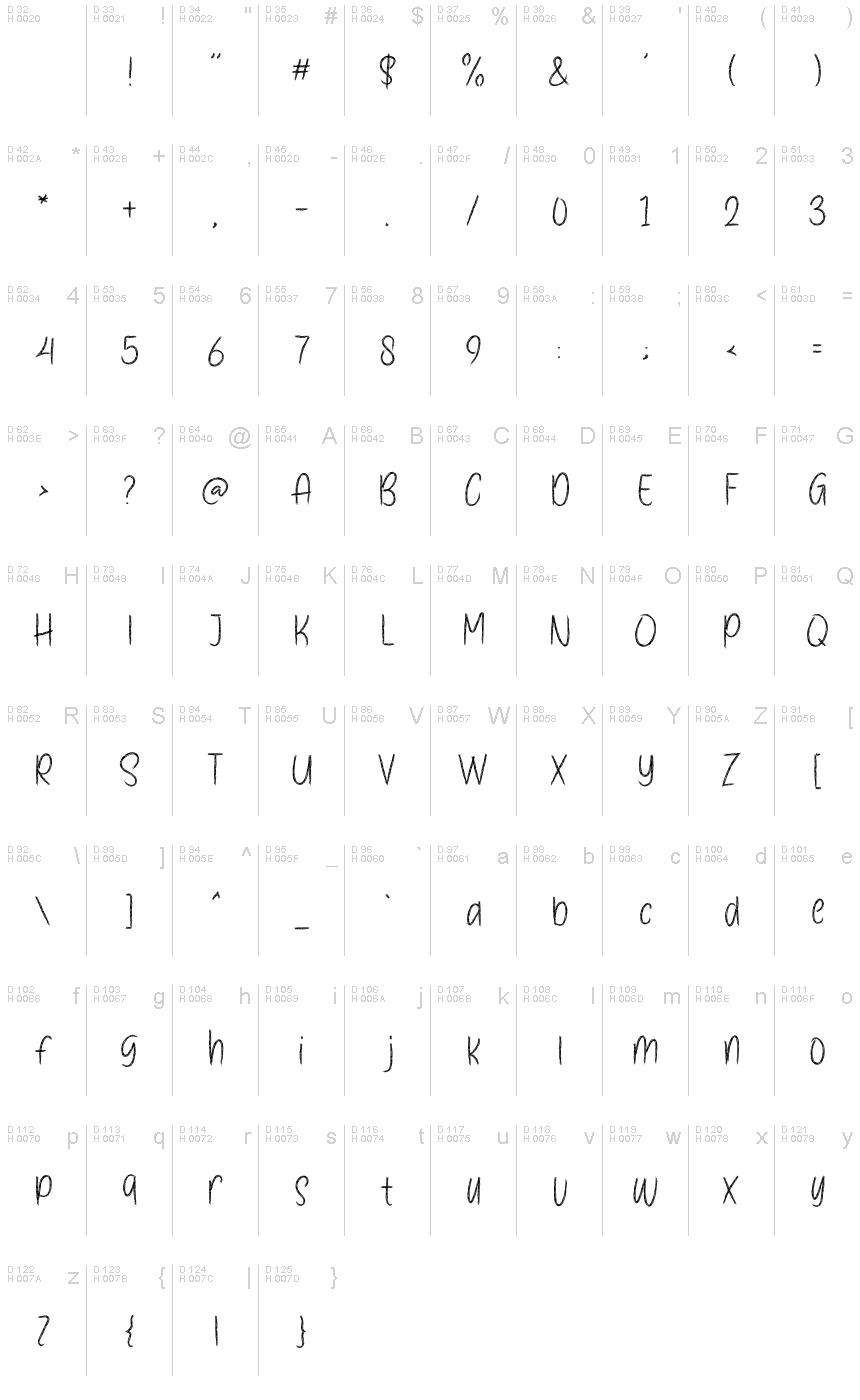
Halloween History
Halloween History, designed by Etik Fatimah, is a unique and captivating brush font. Its semi-light weight and condensed width give it a sleek and stylish appearance.
Perfect for adding a touch of personality to your Halloween-themed projects, this font is ideal for creating spooky invitations, chilling posters, eerie social media graphics, and hauntingly beautiful logos. Its handwritten style adds an authentic feel to any design, making it perfect for crafting DIY decorations or designing memorable Halloween party flyers.
With Halloween History as your trusty font companion, you can bring the spirit of this bewitching holiday to life in all your creative endeavors.